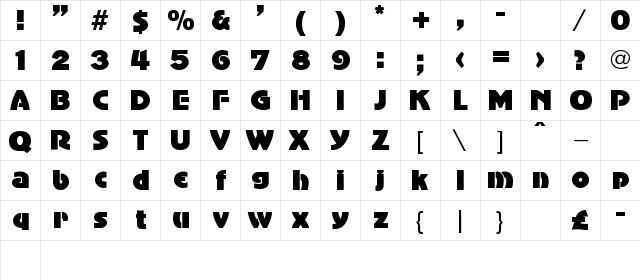
Oxxo Regular
Design Context for Oxxo Typeface
Oxxo offers clean, dependable letterforms without strong stylistic allegiance, making it a practical choice for designers who need flexibility.
Pro Tip: Use Oxxo in both headline and body roles to test its range before committing to a single application.